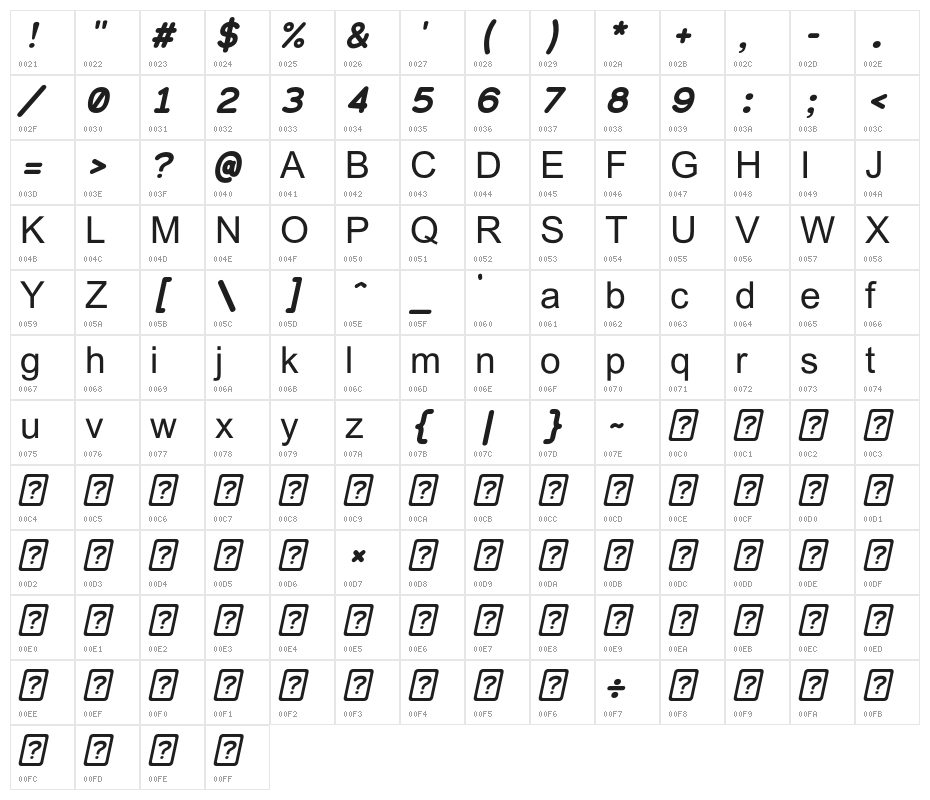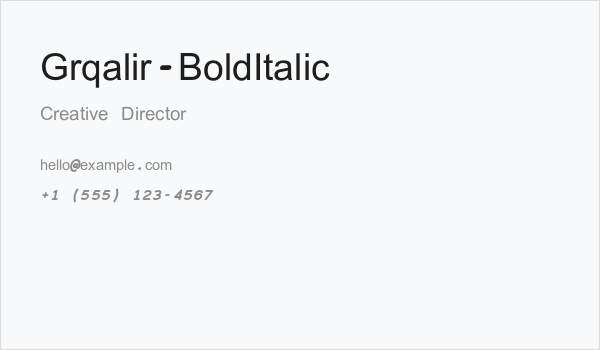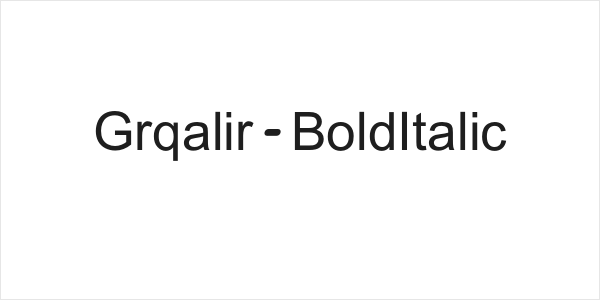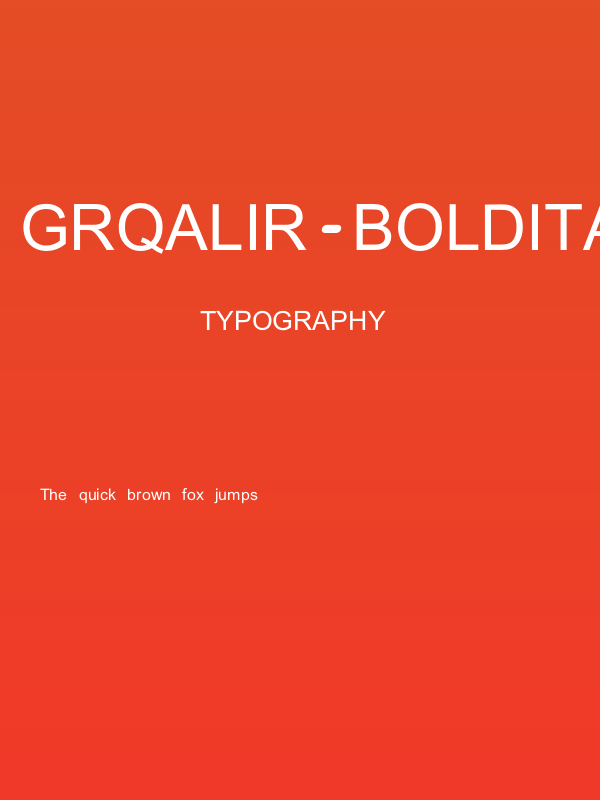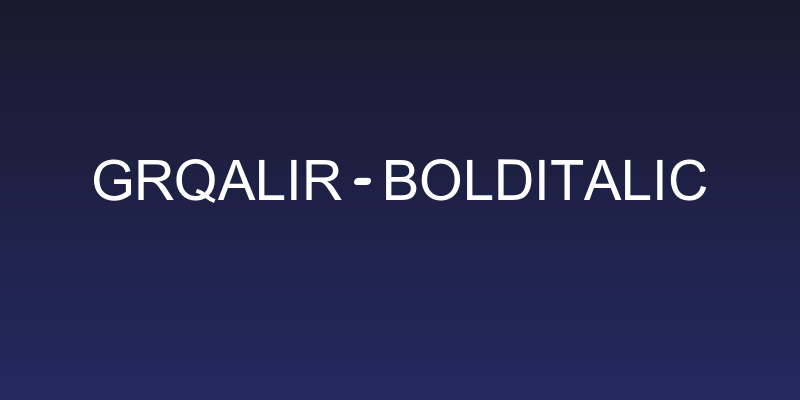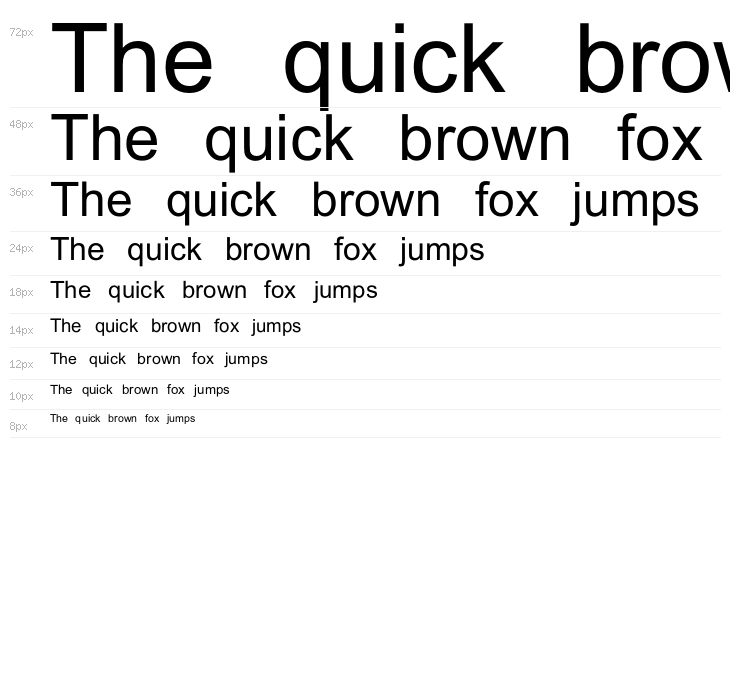
Grqalir-BoldItalic Font
Grqalir-BoldItalic Description
This font features a clean and modern sans-serif style with a bold and italicized appearance. The uppercase and lowercase letters are well-proportioned, offering a sense of balance and readability. The numerals are distinct and clear, making them suitable for various applications. The special characters are designed to complement the overall aesthetic, maintaining consistency across the font. Its bold weight and italic slant add a dynamic touch, making it versatile for both digital and print media.
| Use Case | Headlines, Logos, Digital content |
| Proposed Projects | Ideal for branding, advertising, headlines, and digital content where a modern and bold statement is needed. |